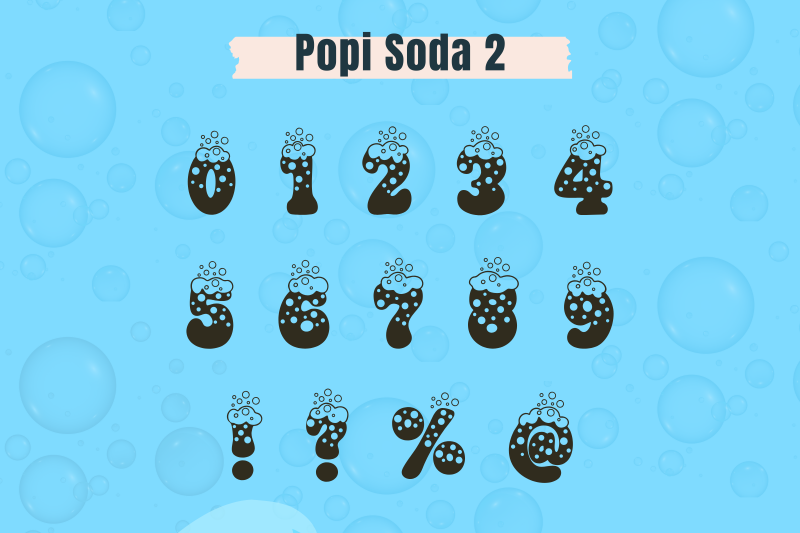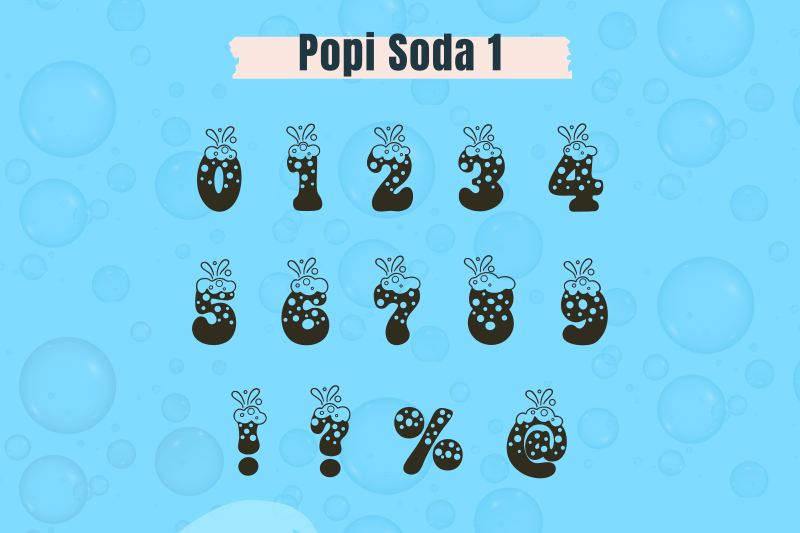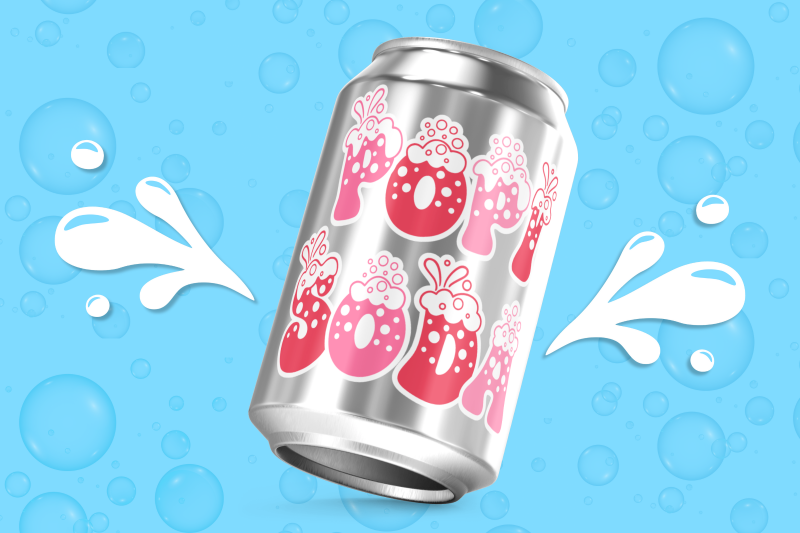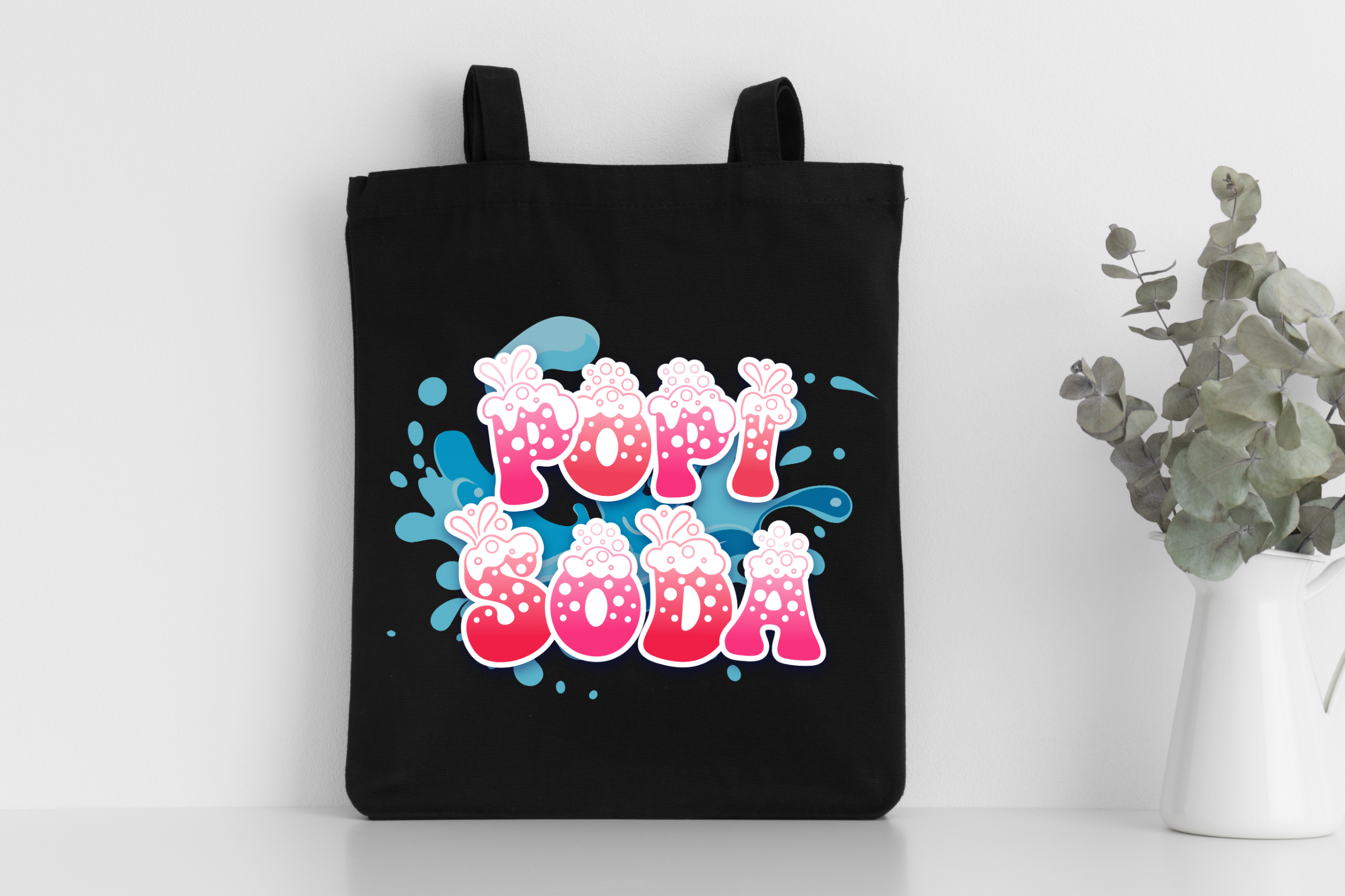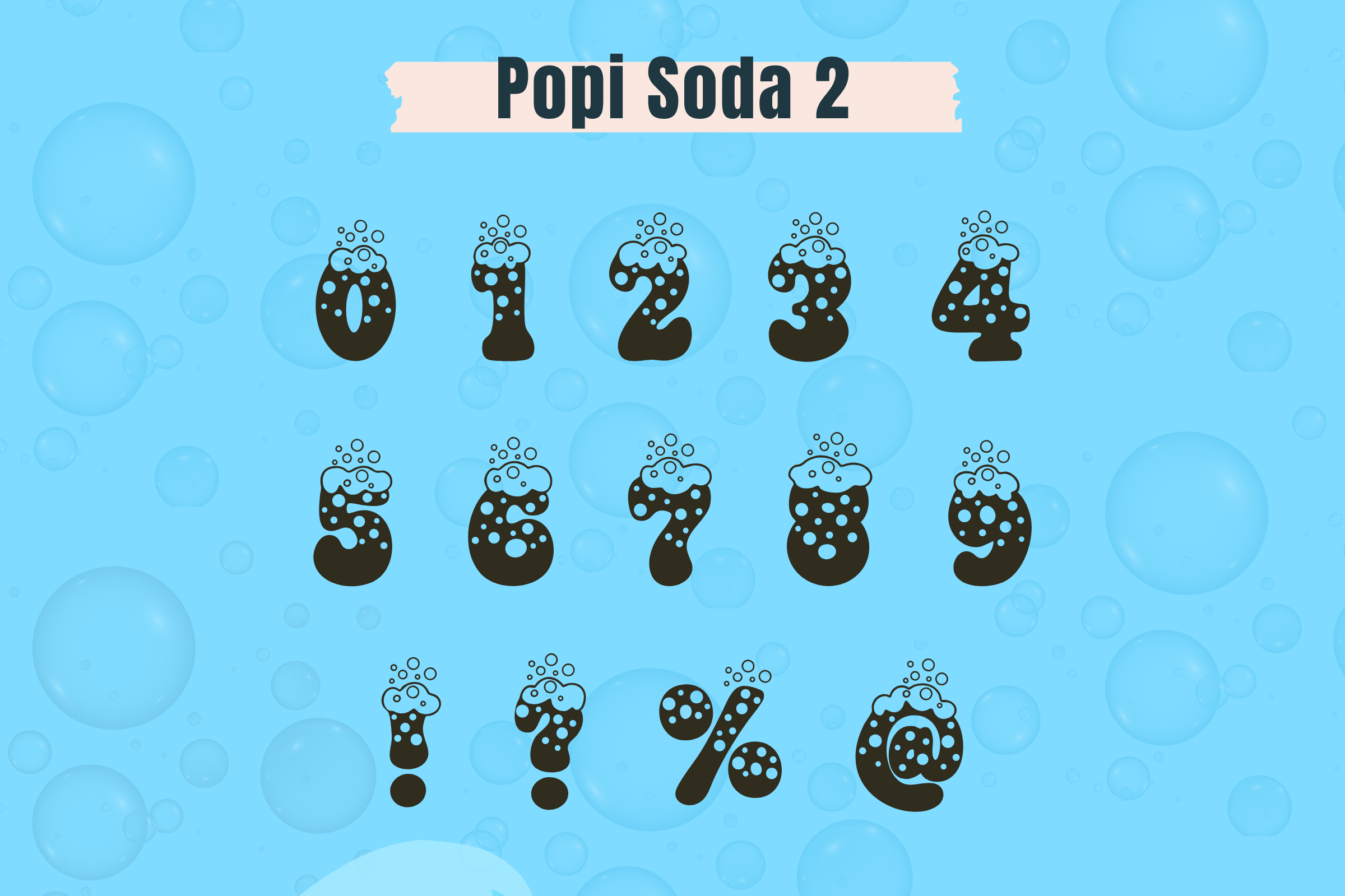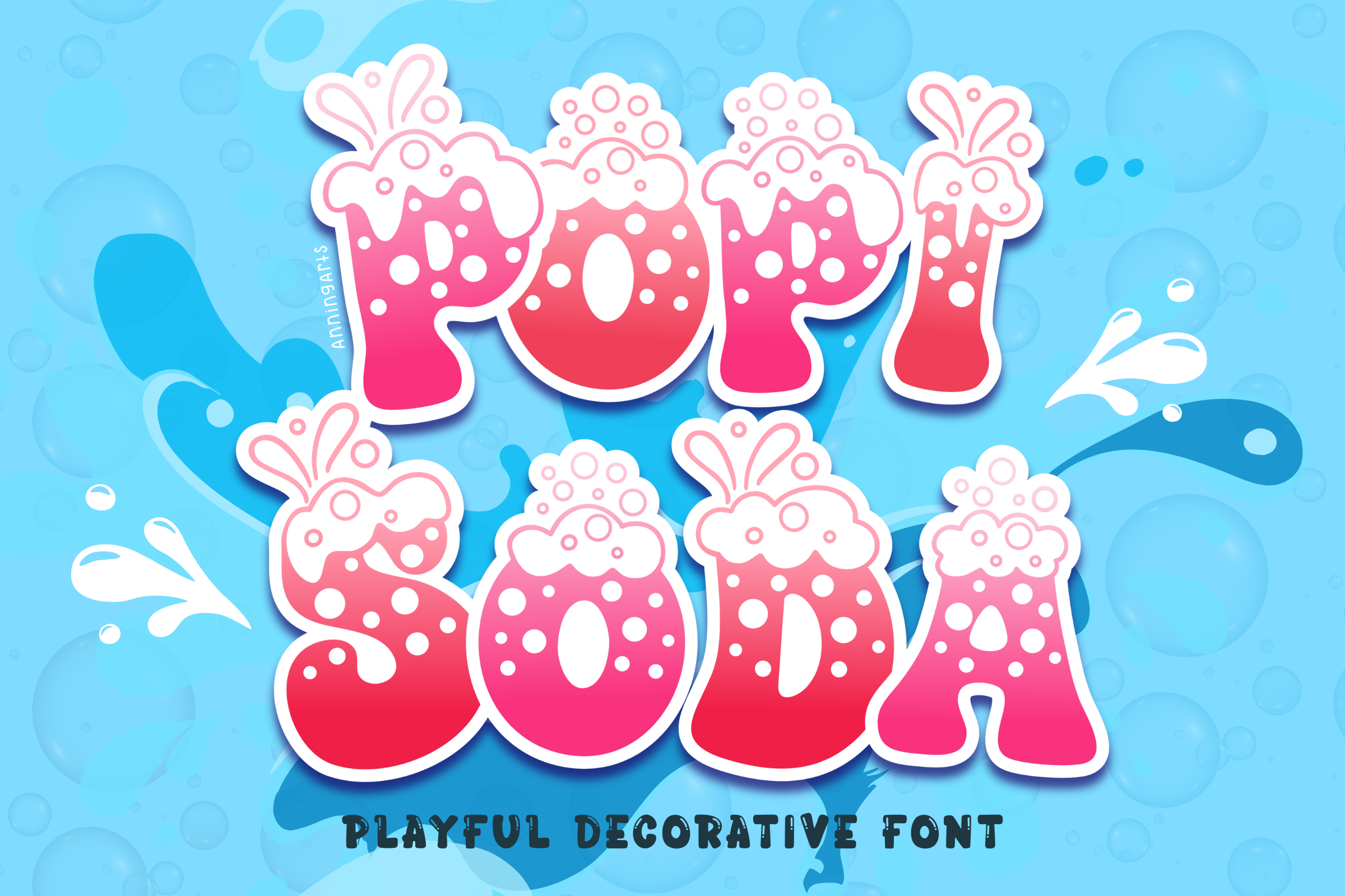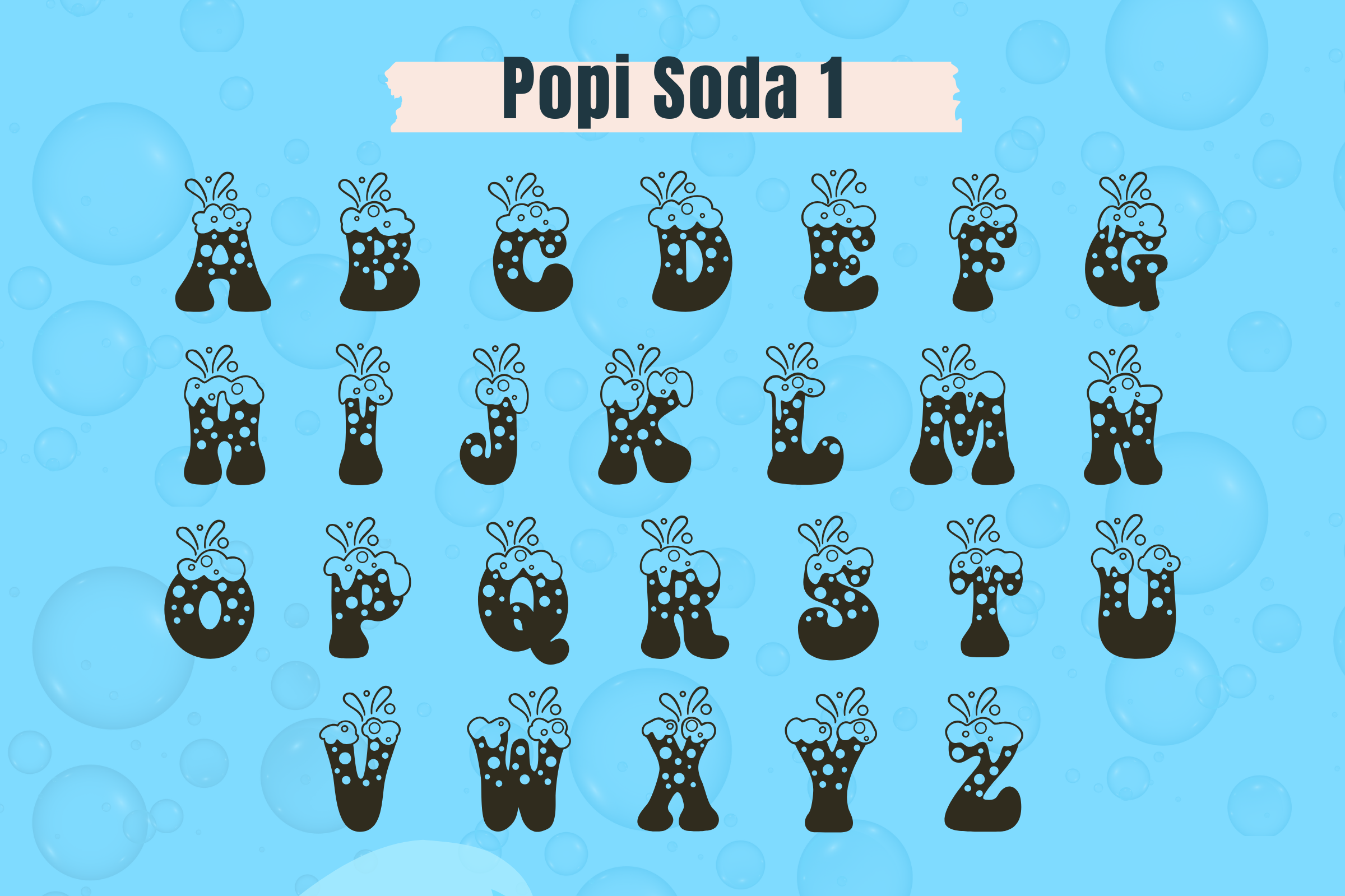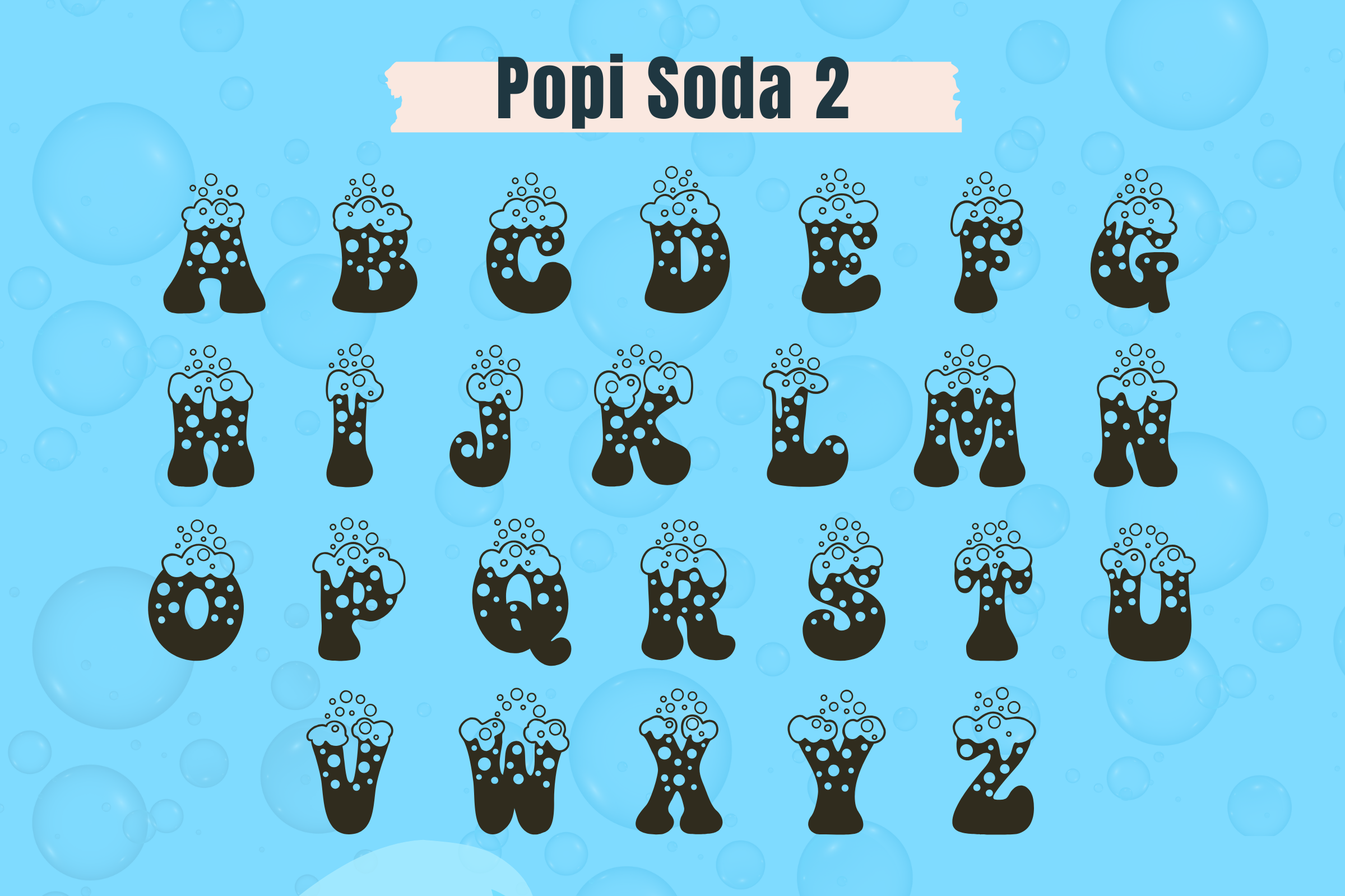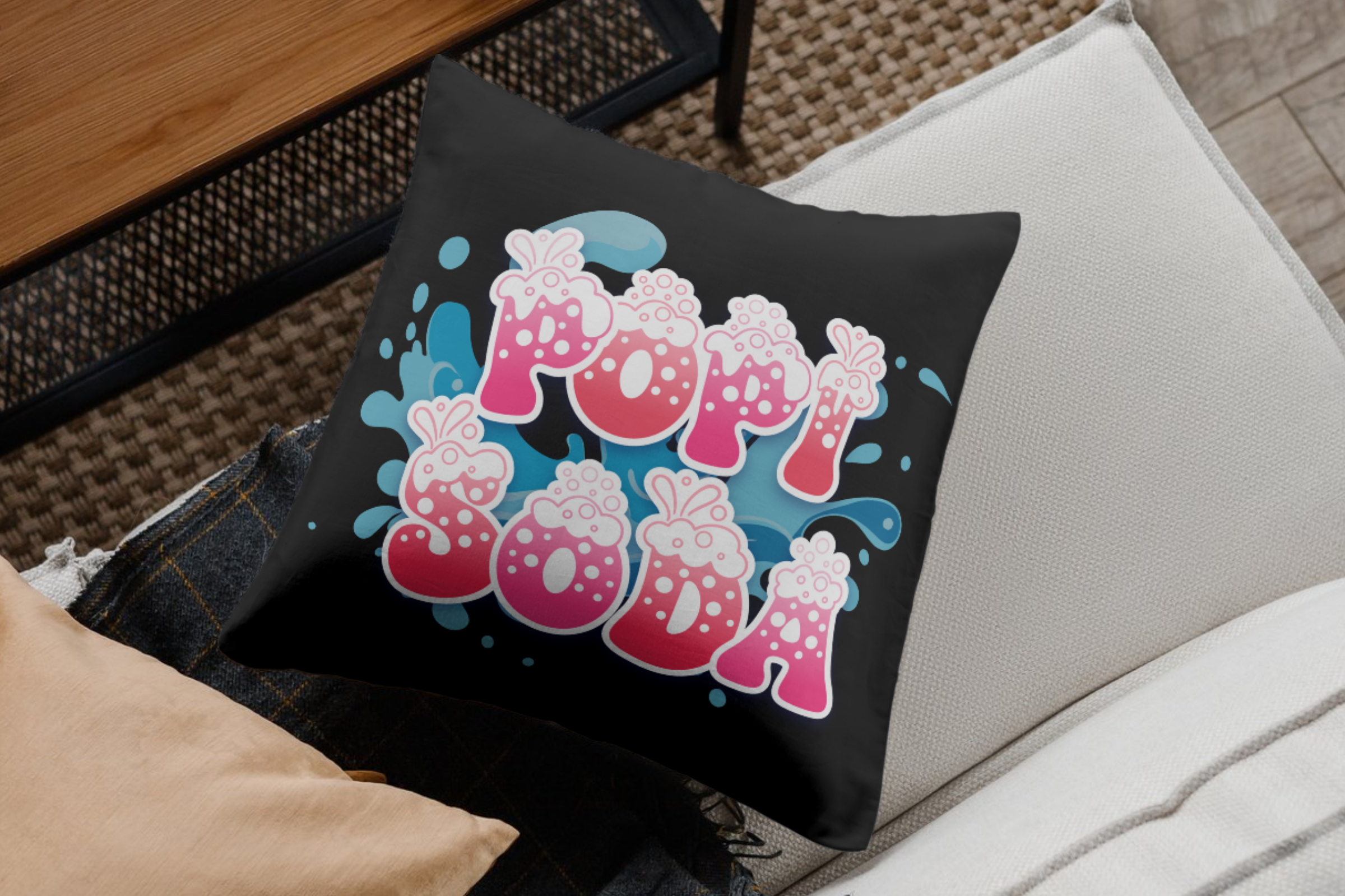
Popi Soda Font
Bring the fun fizz of soda into your crafts with Popi Soda, a playful bubble decorative font! Designed with bubbly foam and splash details, this font is great for Cricut and Silhouette projects, party invitations, t-shirts, mugs, and summer designs.